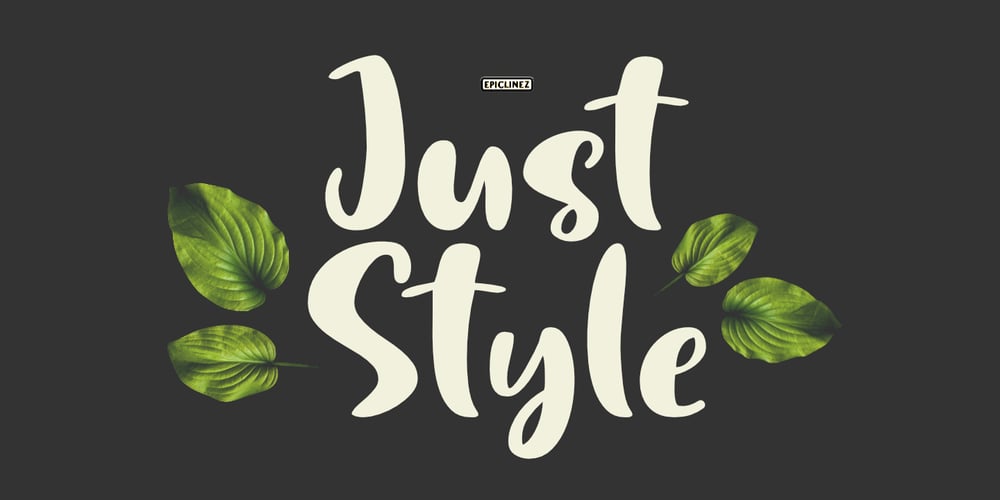
Just Style Font Family was designed by Aldy Sidik and published by Epiclinez. Just Style contains 1 styles and family package options. Just Style is a fun and playful display font. This cute font will look truly outstanding in a wide of contexts from letterheads and titles, to logos.